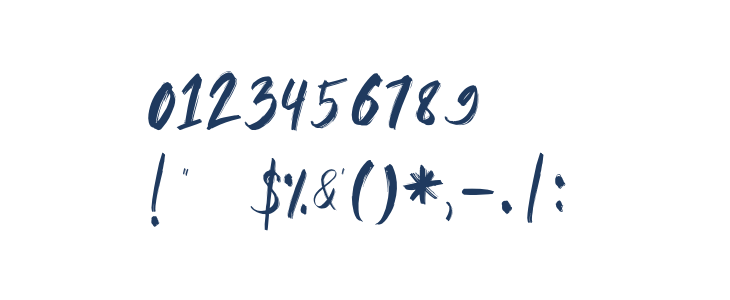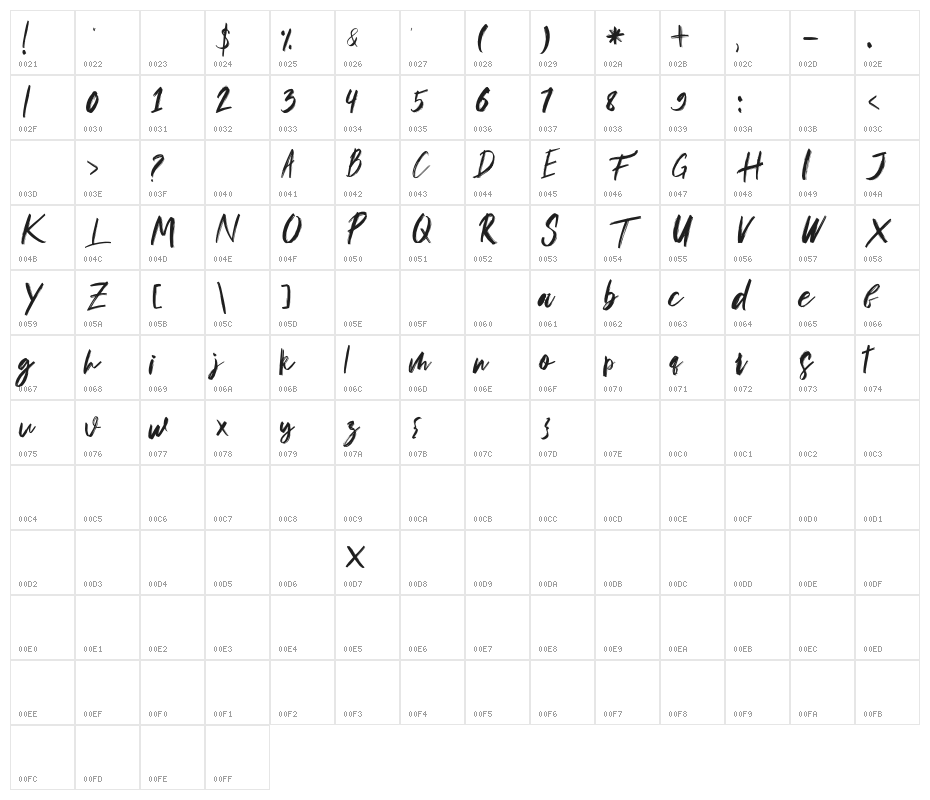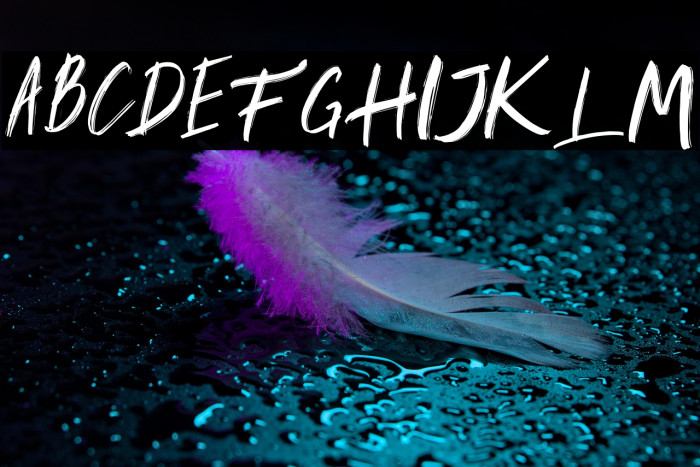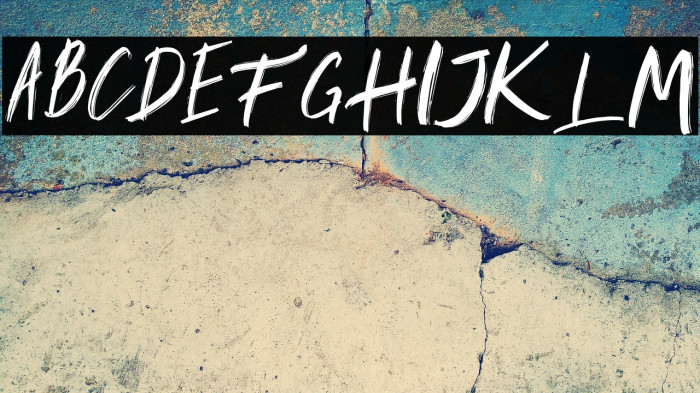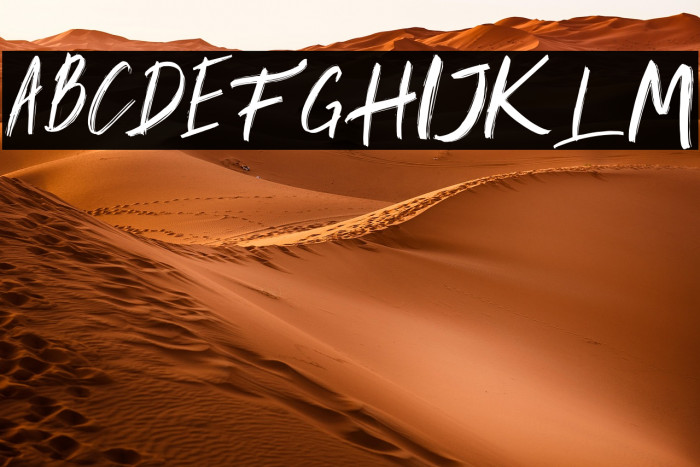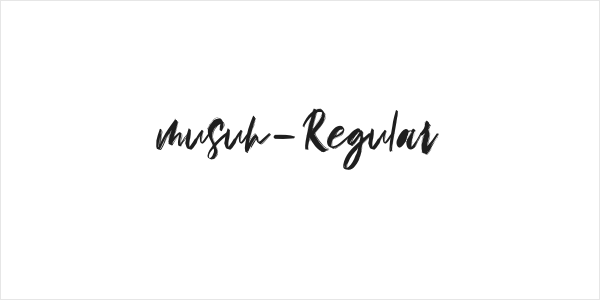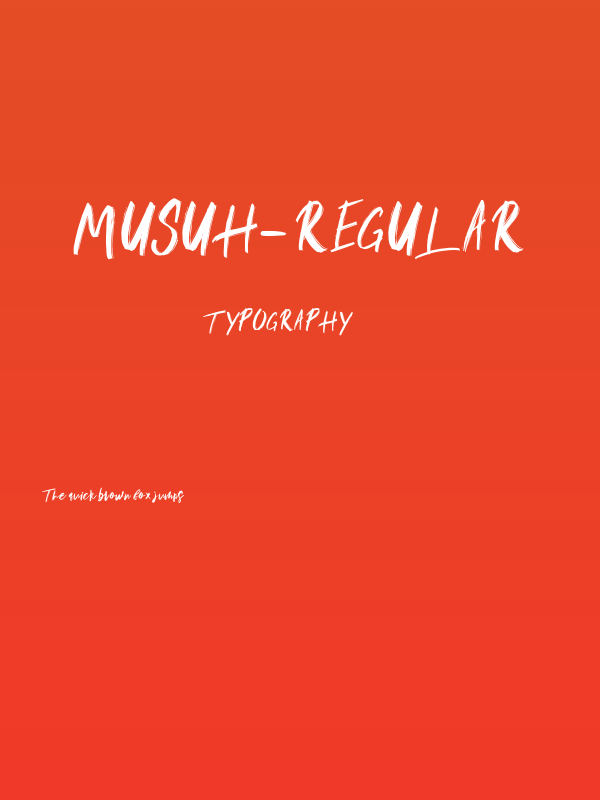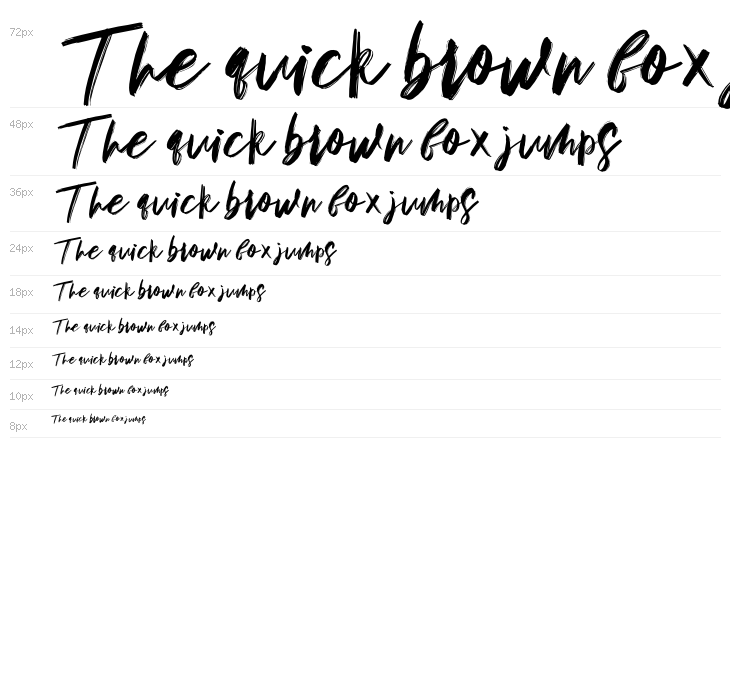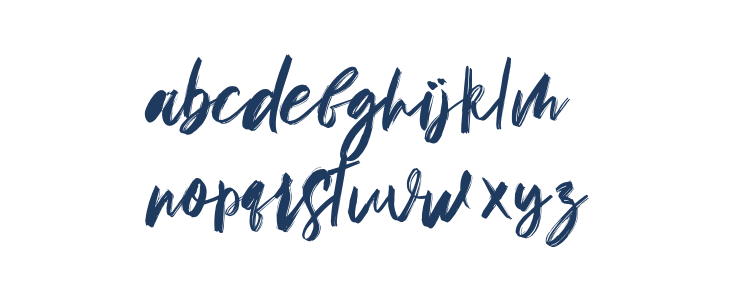
musuh-Regular Font
musuh-Regular Description
This font features a bold, expressive style with a handwritten appearance. The strokes are dynamic and varied, giving it a lively and energetic feel. The uppercase letters are tall and slightly narrow, while the lowercase letters maintain a consistent flow with a more rounded form. Numbers and special characters follow the same energetic style, making the font suitable for creative and informal designs. The brush-like texture adds a personal touch, enhancing its appeal for artistic projects.